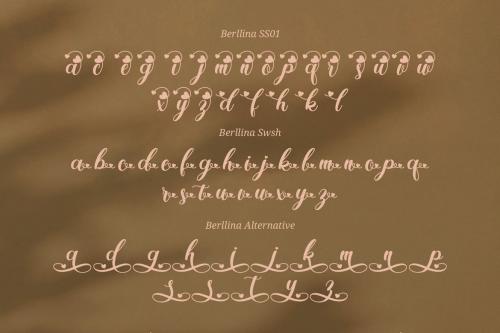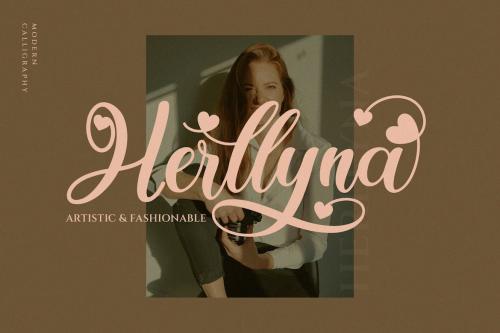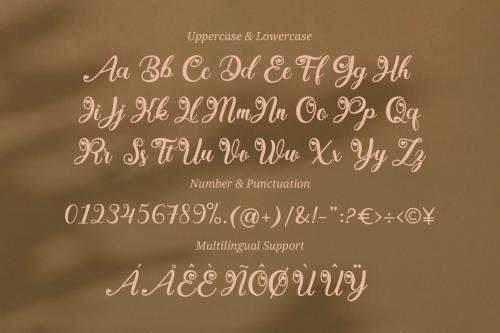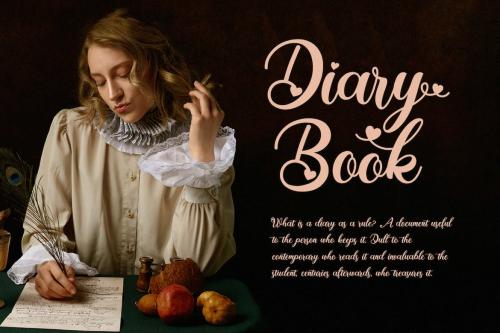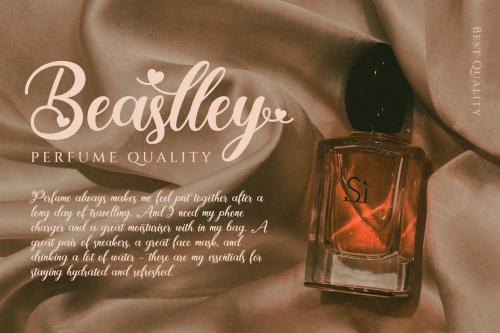
贝尔丽纳 - 字体手写体
Berllina - Script Font
Berllina is a modern script font. This font can be used for various purposes, including for invitations, weddings, birthdays, fashion, products, feminine, beauty, salon, product packaging, quotes, product designs, crafters, labels, photography, watermarks, t-shirts, logos & branding. Everything can be accessed using software that supports Opentype, such as Adobe Indesign, Adobe CS Illustrator, Adobe Photoshop CC, and Corel Draw.